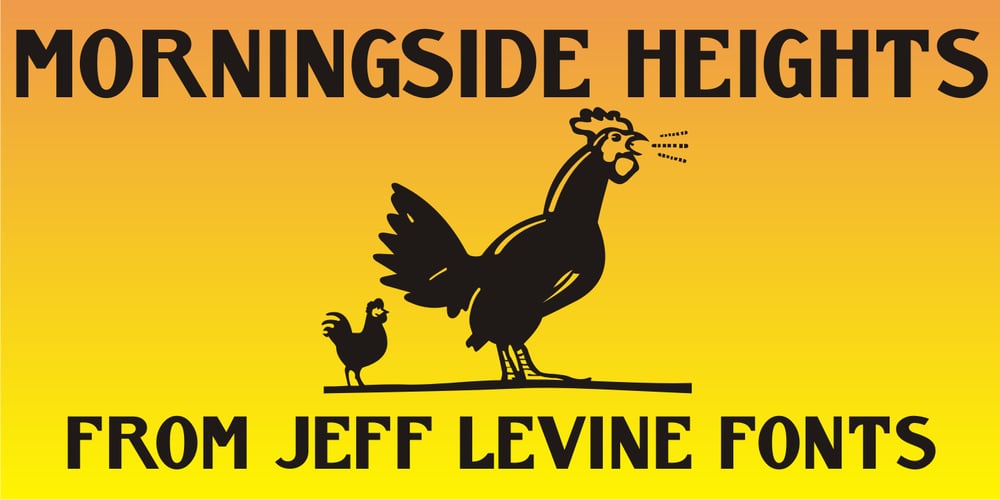
Morningside Heights JNL
Morningside Heights JNL font
Morningside Heights JNL Font Family was designed by Jeff Levine and published by Jeff Levine. Morningside Heights JNL contains 1 styles and family package options. Named for a Manhattan neighborhood, Morningside Heights JNL is based on lettering found on a 1920s-era piece of sheet music. Part of the charm of hand lettering from the Art Nouveau era is found in the non-standard line thicknesses, experimental character shapes and varying character widths.